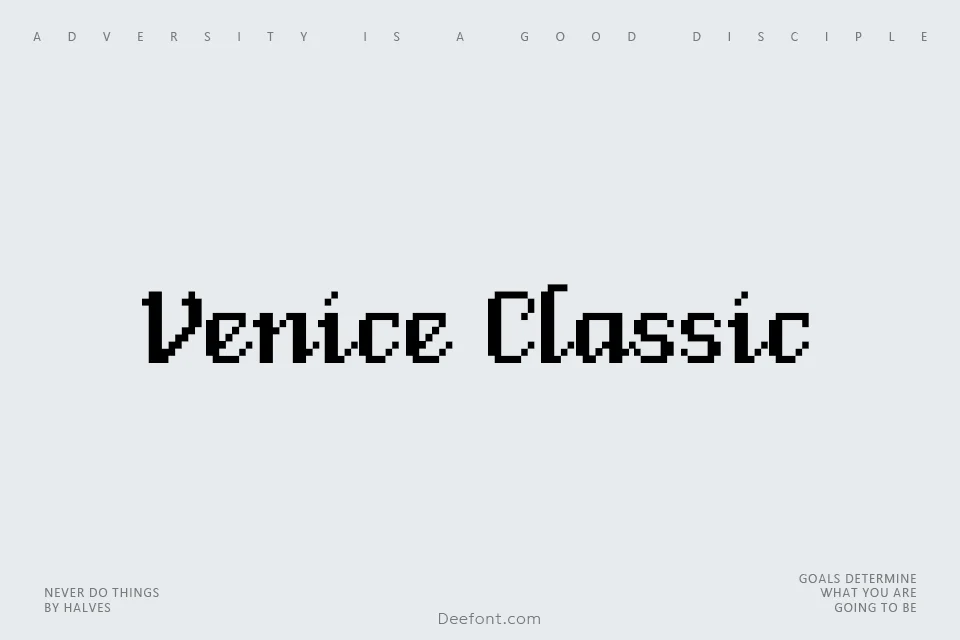
Venice Classic Font
Venice Classic is a charming handmade TrueType version of the classic Apple bitmap font, meticulously crafted for digital design projects. This elegant typeface features timeless calligraphic influences with ornate, flowing letterforms that evoke sophistication and historical charm. With an optimal display size of 19px, Venice Classic excels in creating elegant typography for invitations, formal event programs, luxury branding, and decorative displays. The font’s versatile design seamlessly blends readability with artistic flair, making it an ideal choice for projects requiring a touch of classic elegance and refined visual impact.